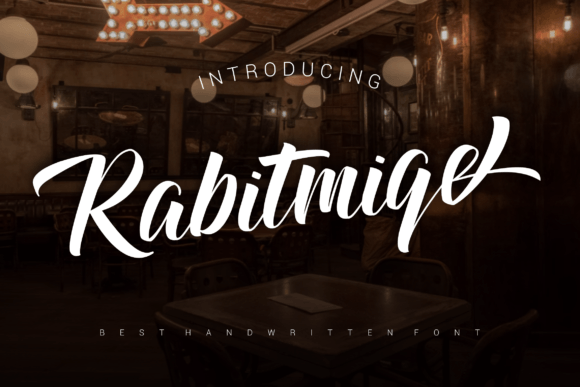
Behold Rabitmiqe Font, a striking and genuine handwritten font bursting with character and charm. This captivating script adds a dash of authenticity and personality to any design endeavor. Crafted by the talented kalingga.albert, Rabitmiqe is the perfect font for those seeking a distinct, hand-drawn aesthetic.
Immerse yourself in the beauty of Rabitmiqe, a font that dances and flows with an effortless grace. Its bold strokes and playful curves evoke a sense of joy and creativity, inviting you to explore your imagination. Whether you're a budding designer or a seasoned professional, Rabitmiqe will elevate your work to new heights.
With Rabitmiqe, the possibilities are limitless. Let your creativity soar as you craft eye-catching logos, stunning t-shirt designs, or captivating marketing materials. Its versatility knows no bounds, seamlessly adapting to various contexts and industries. From fashion to food, from lifestyle to travel, Rabitmiqe adds a touch of elegance and authenticity that resonates with audiences.
Step into the world of Rabitmiqe and discover a font that speaks to the heart. Its minimalist design exudes a timeless appeal, making it a perfect choice for those who appreciate clean lines and understated beauty. Let Rabitmiqe be your muse, inspiring you to create designs that captivate and enchant.
Don't settle for ordinary fonts. Choose Rabitmiqe and embark on a creative journey like no other. Its uniqueness and charm will leave a lasting impression on your audience, setting your designs apart from the crowd. Experience the Rabitmiqe difference today and unlock a world of creative possibilities.